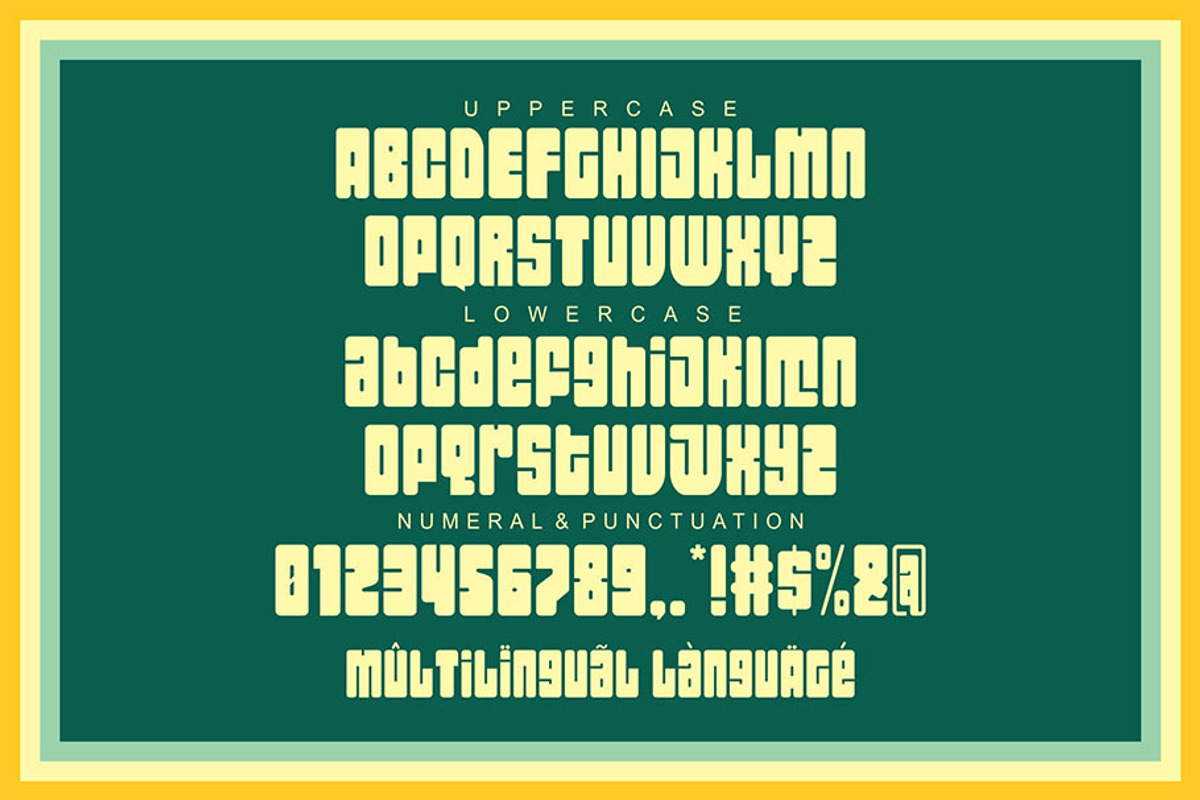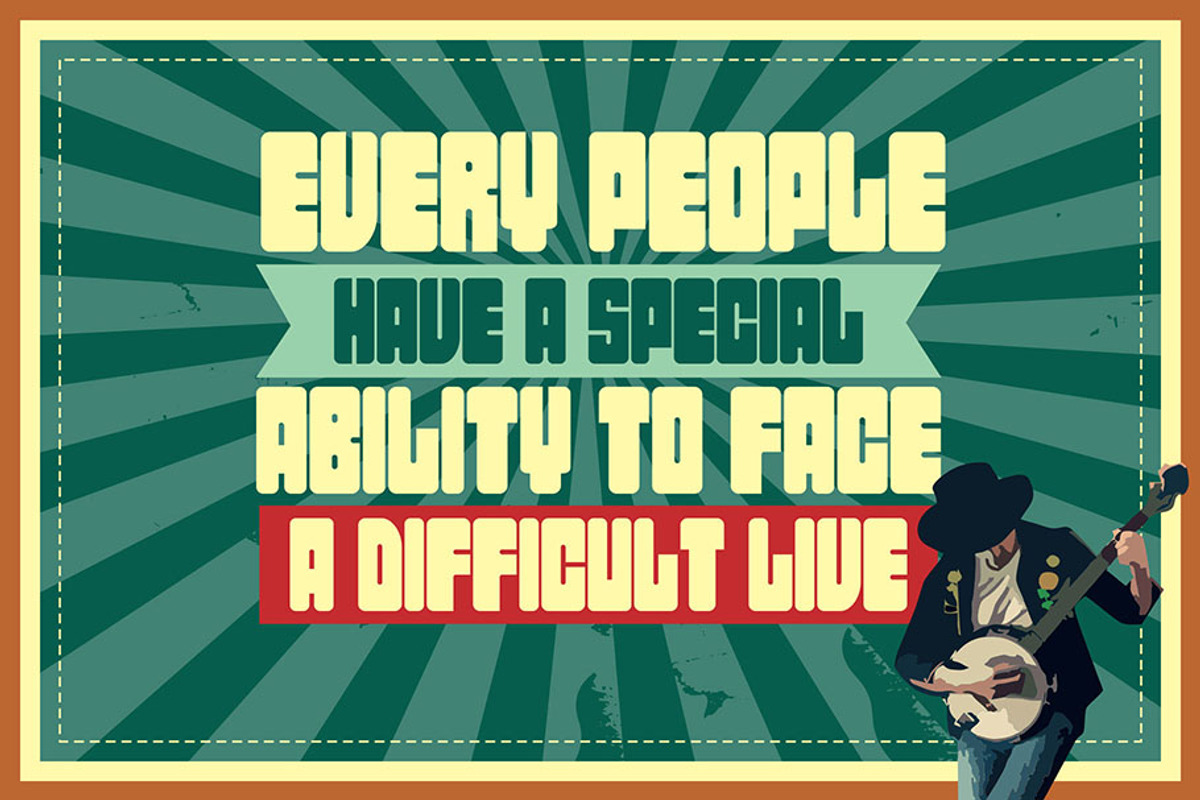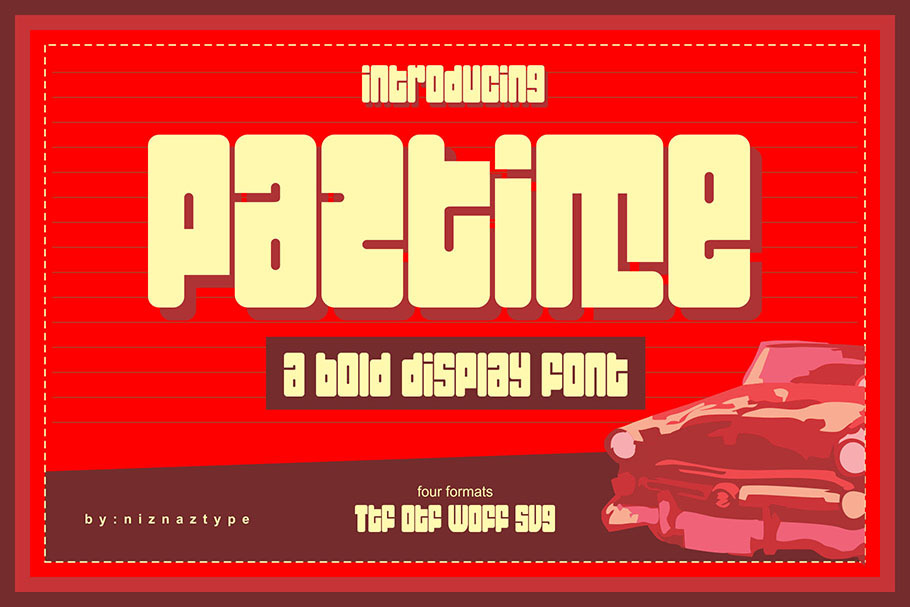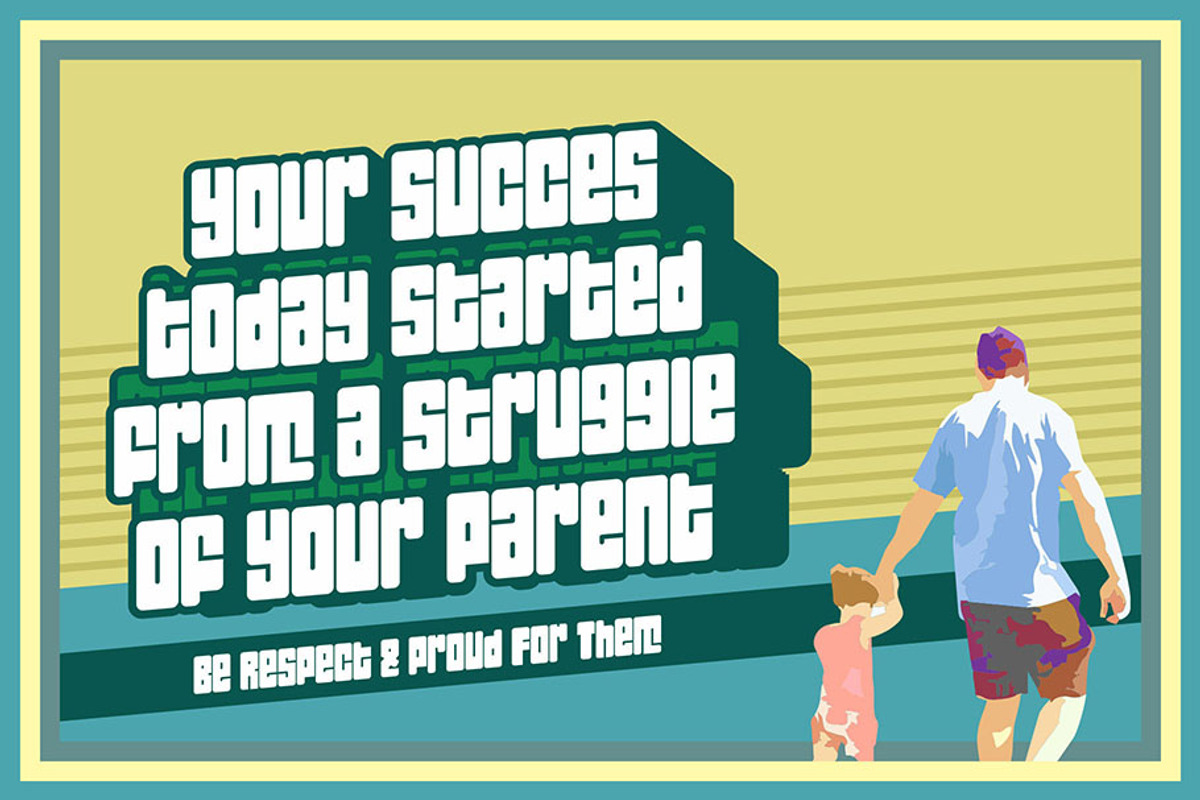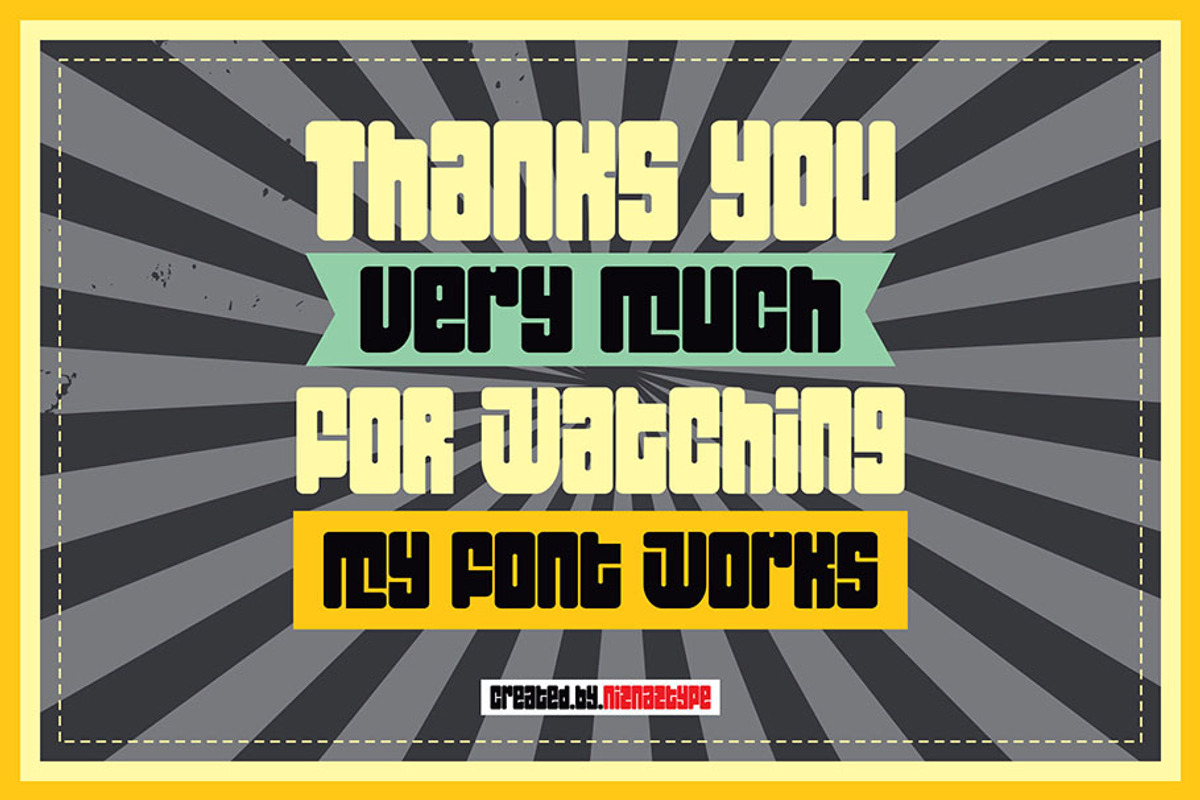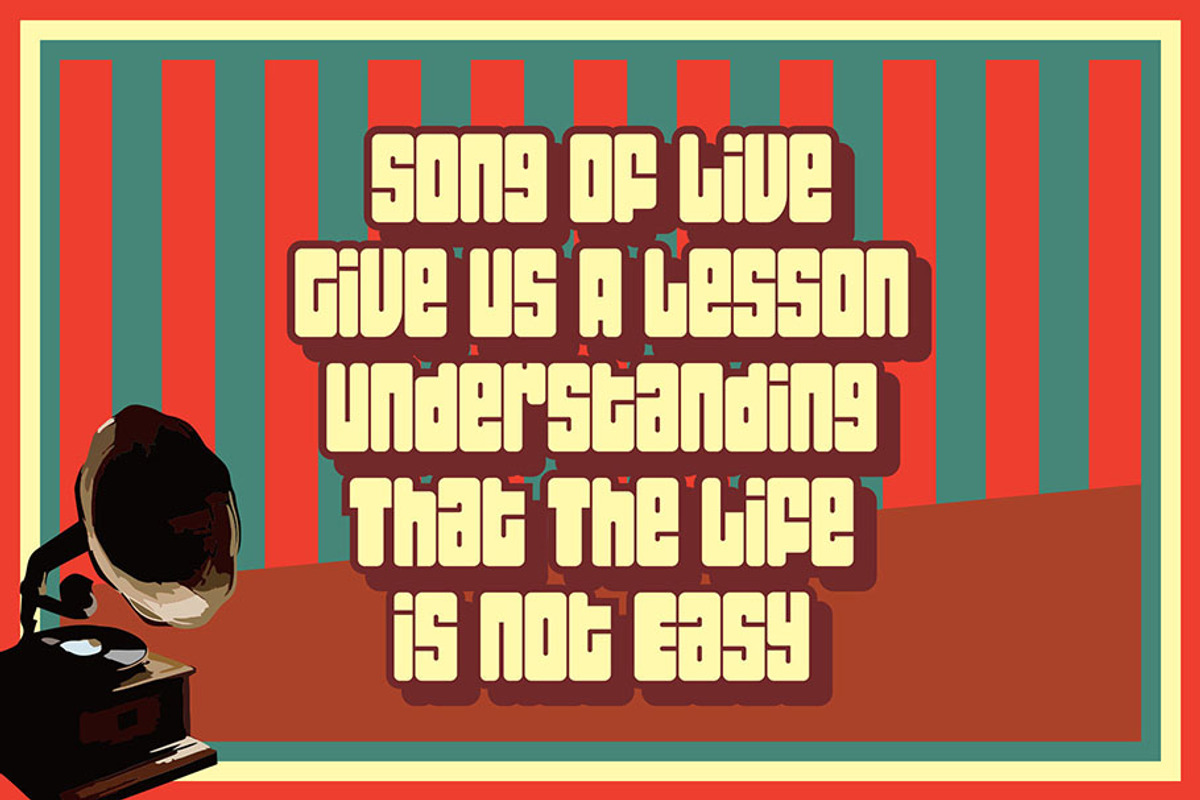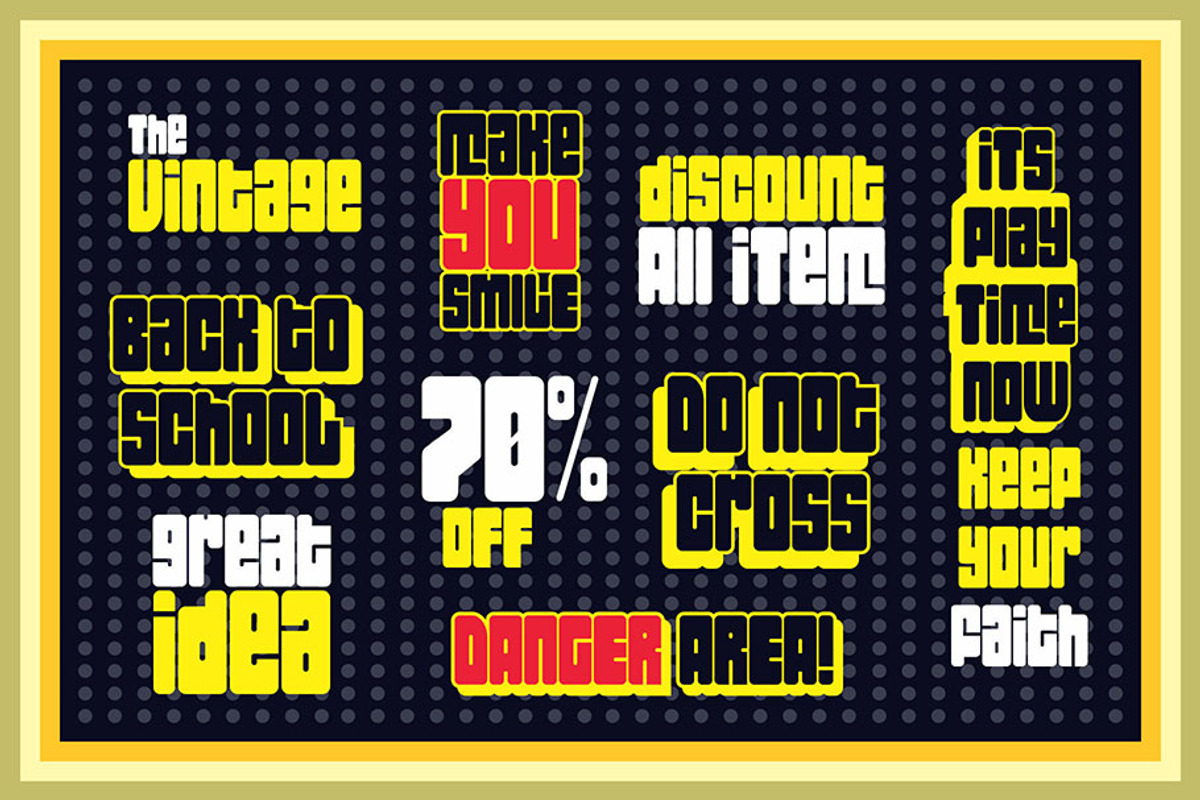
PAZTIME - A Bold Display Font
Introducing Paztime font. A bold display font. This font has oldiest, vintage and retro styles. If you will create a design with vintage style, so Paztime font is very comfortable to used it. Such as poster, letter wallpainting, logo text or headlines, also t-shirt and product tittle. Paztime consist of :
- Numeral and punctuation